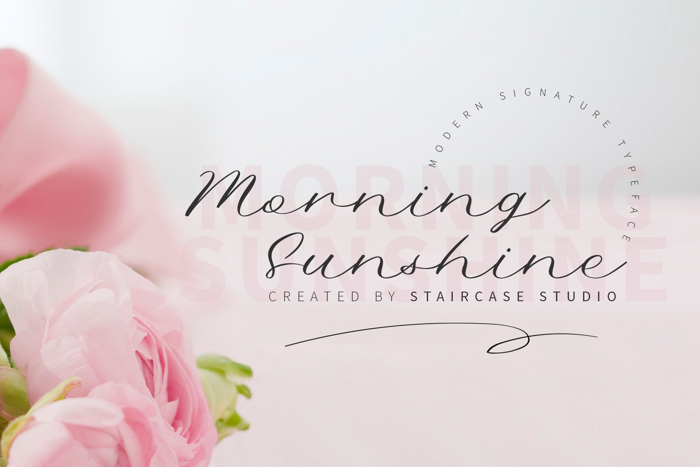
Morning Sunshine Font
Morning Sunshine with script font styles. A collection of letters and numbers suitable your projects also great for Logotype, Branding Design, Logo Design, Digital Lettering Arts, T-Shirt/Apparel, Poster, Magazine, Signs, Advertising Design, and any design needs.